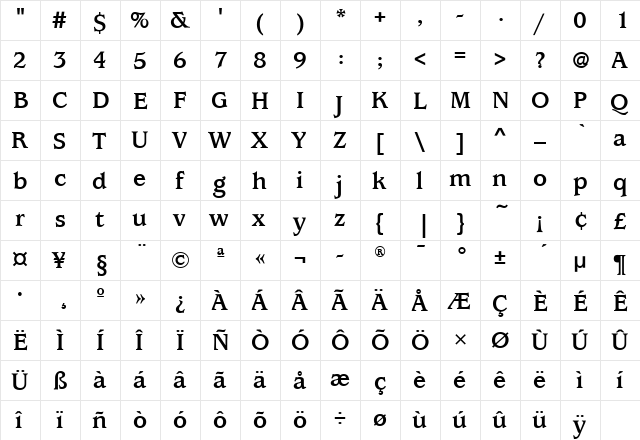
UsherwoodITC Bold
Design Context for UsherwoodITC Typeface
UsherwoodITC echoes the hand-painted signage and woodblock typography of the American frontier, with a warm, rugged personality. Its bold stroke weight gives it real presence on the page.
A natural fit for craft spirits, ranch branding, rodeo events, and Americana-inspired design work.
Font Pairing: Combine UsherwoodITC with a simple slab or neutral sans — period-accurate companions reinforce the vintage feel without competing for attention.
Pro Tip: Use UsherwoodITC for short, impactful bursts of text — it shines in poster headlines and product names rather than extended copy.